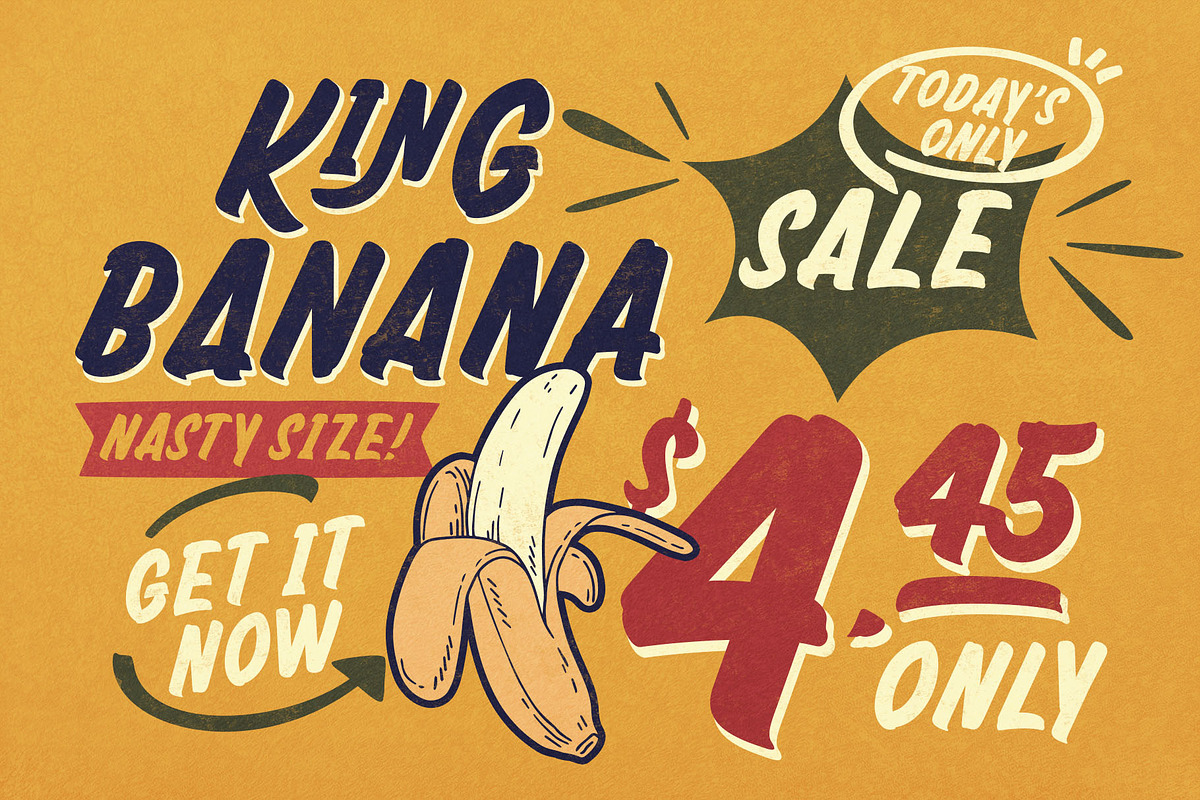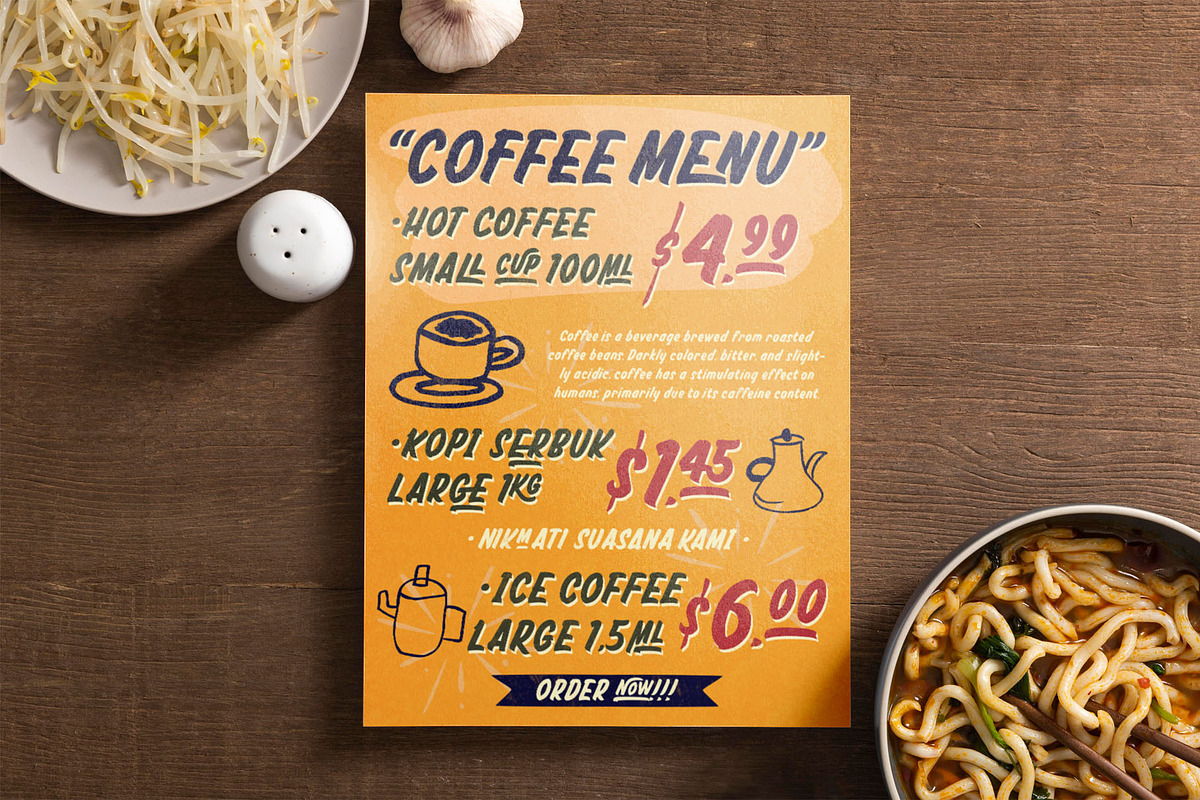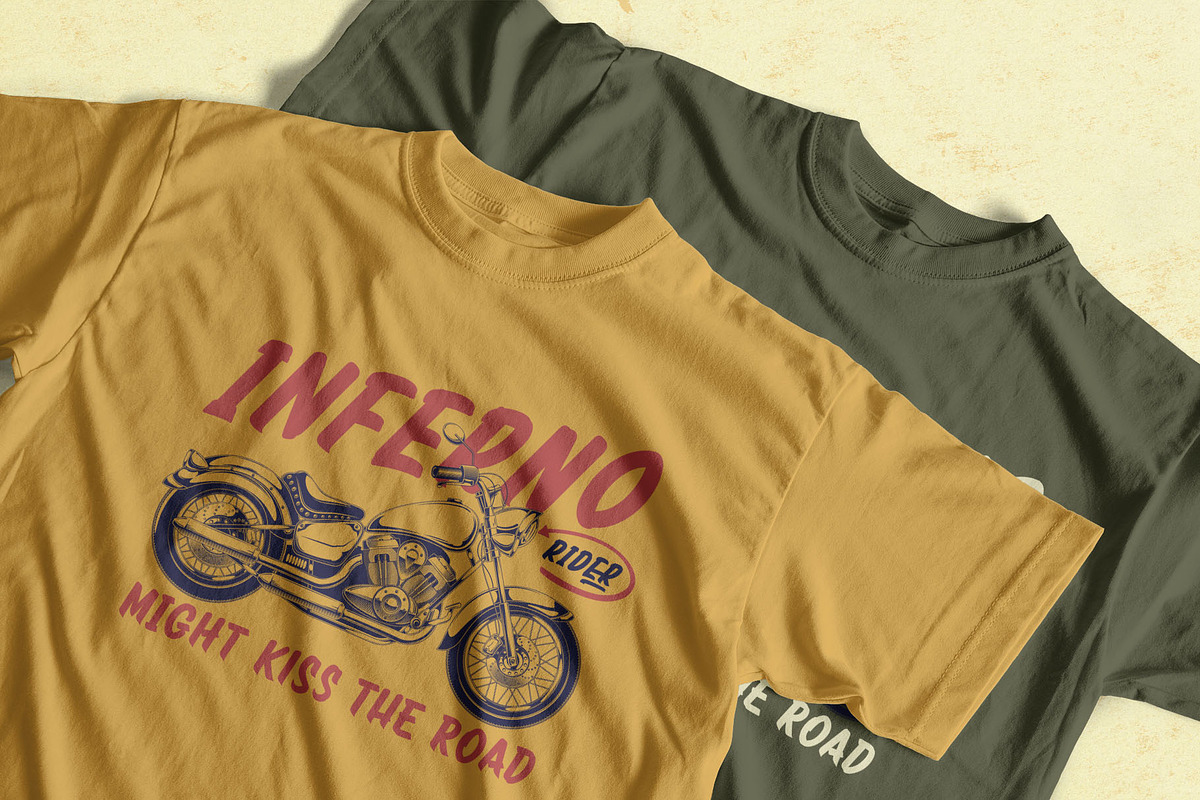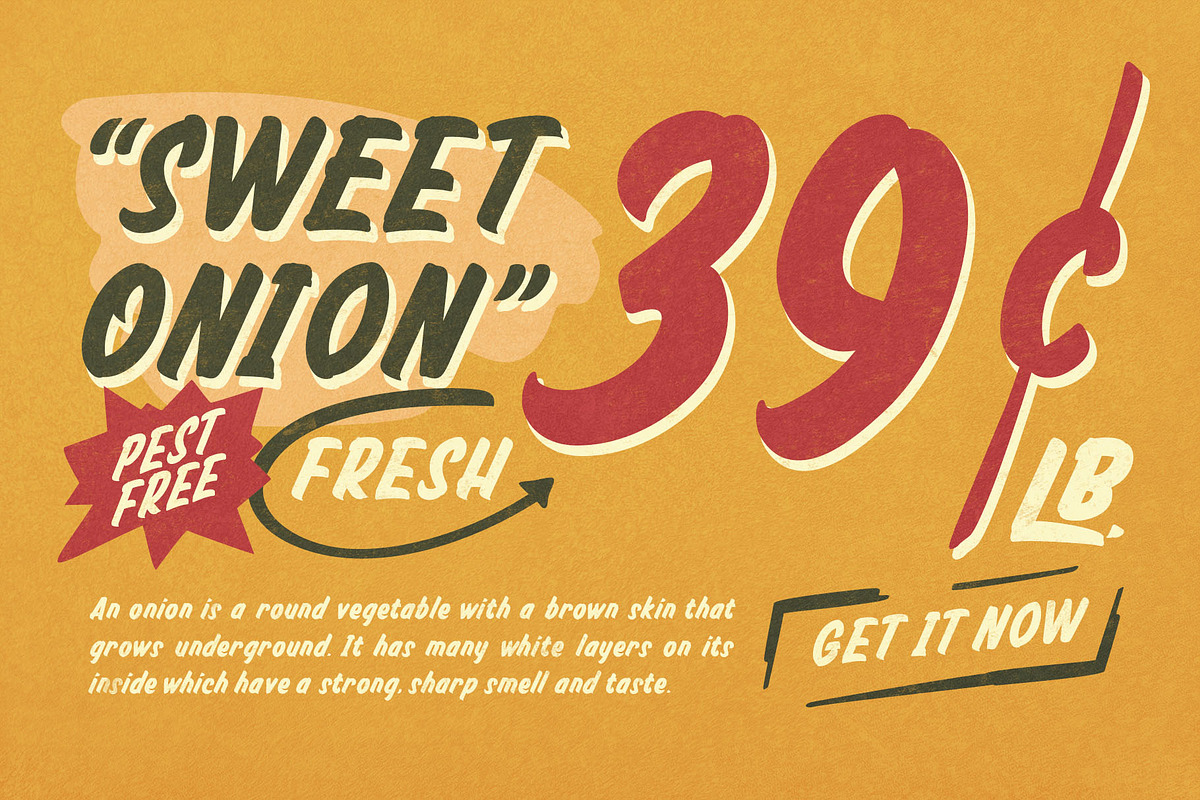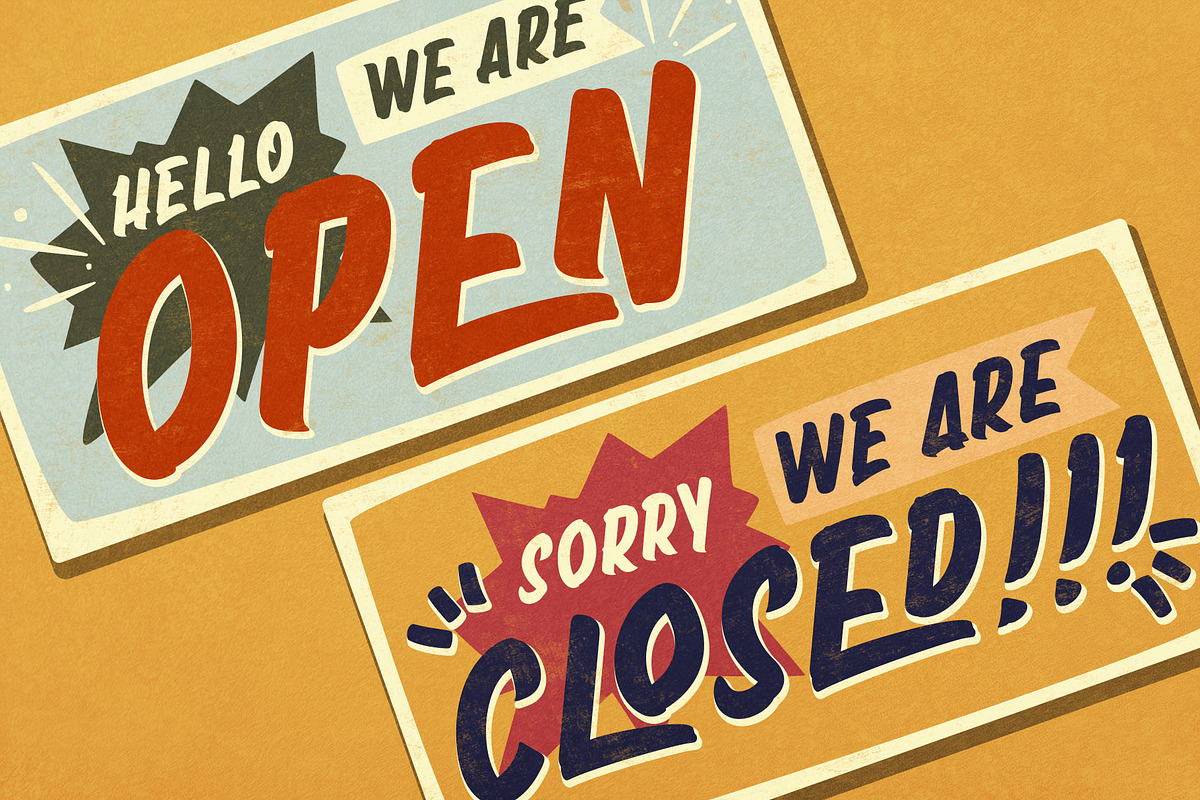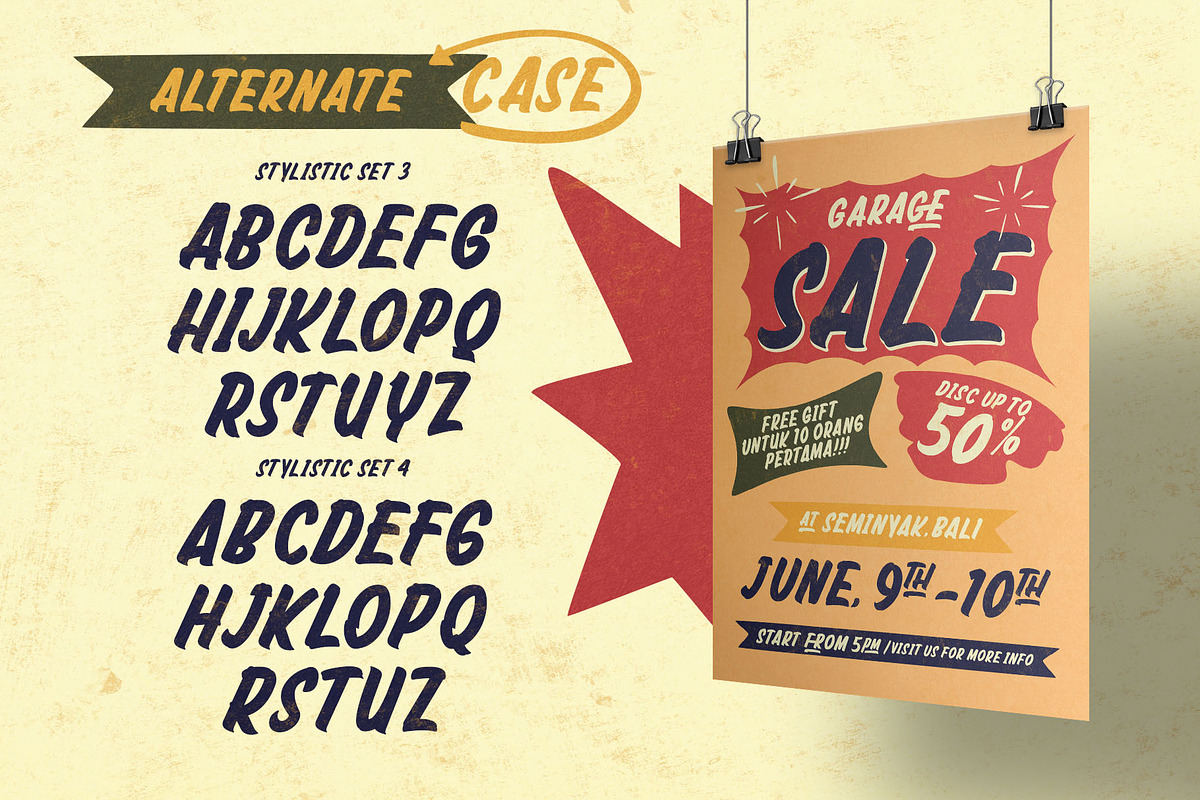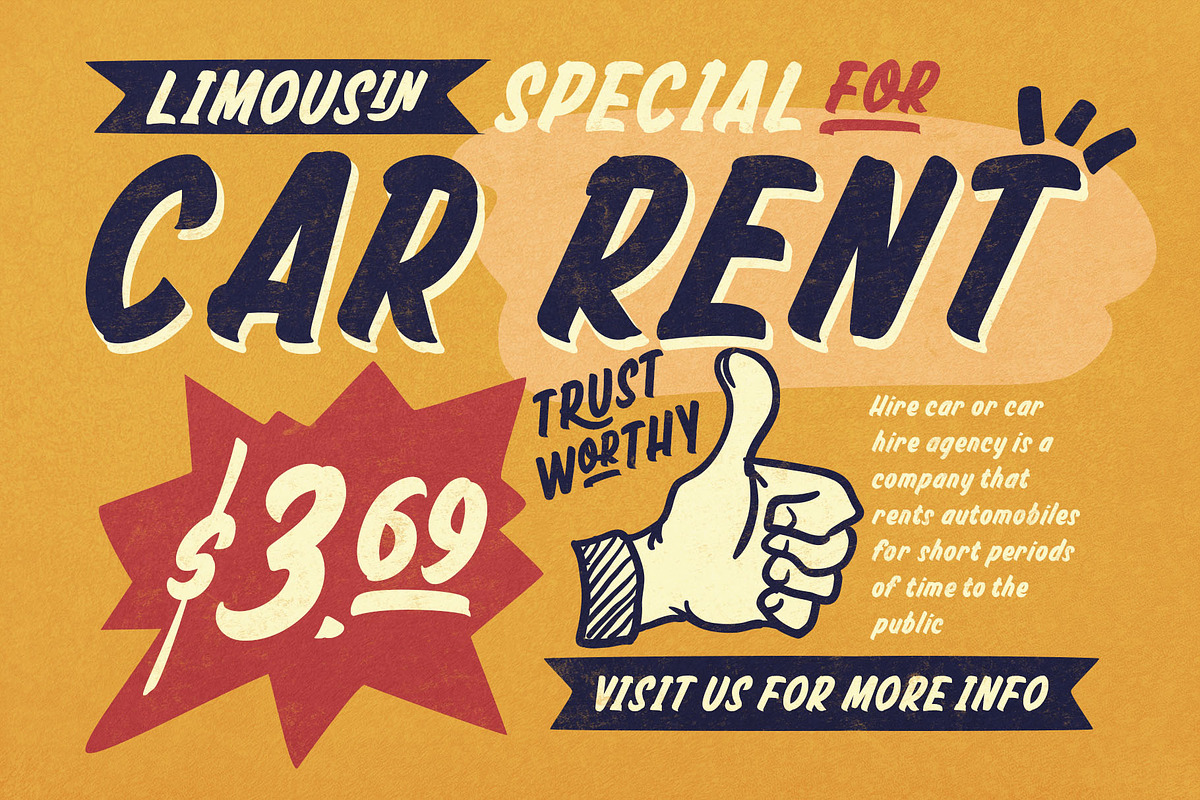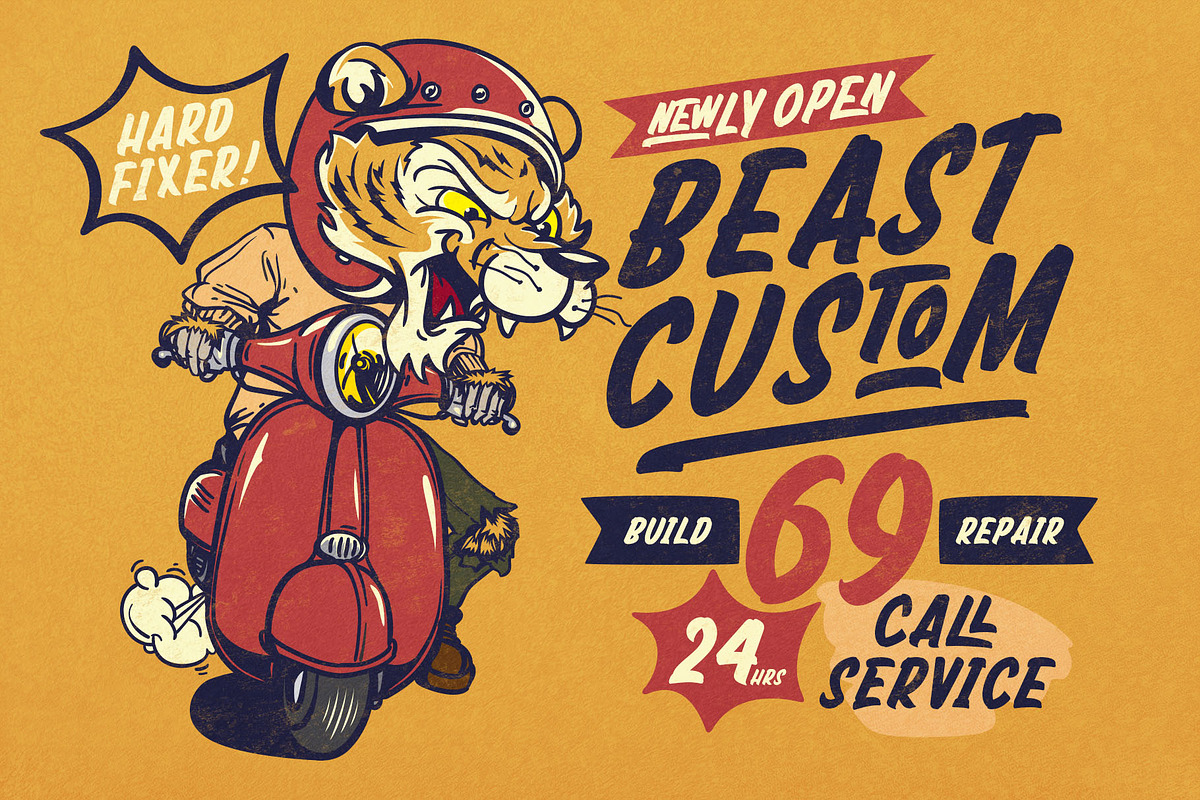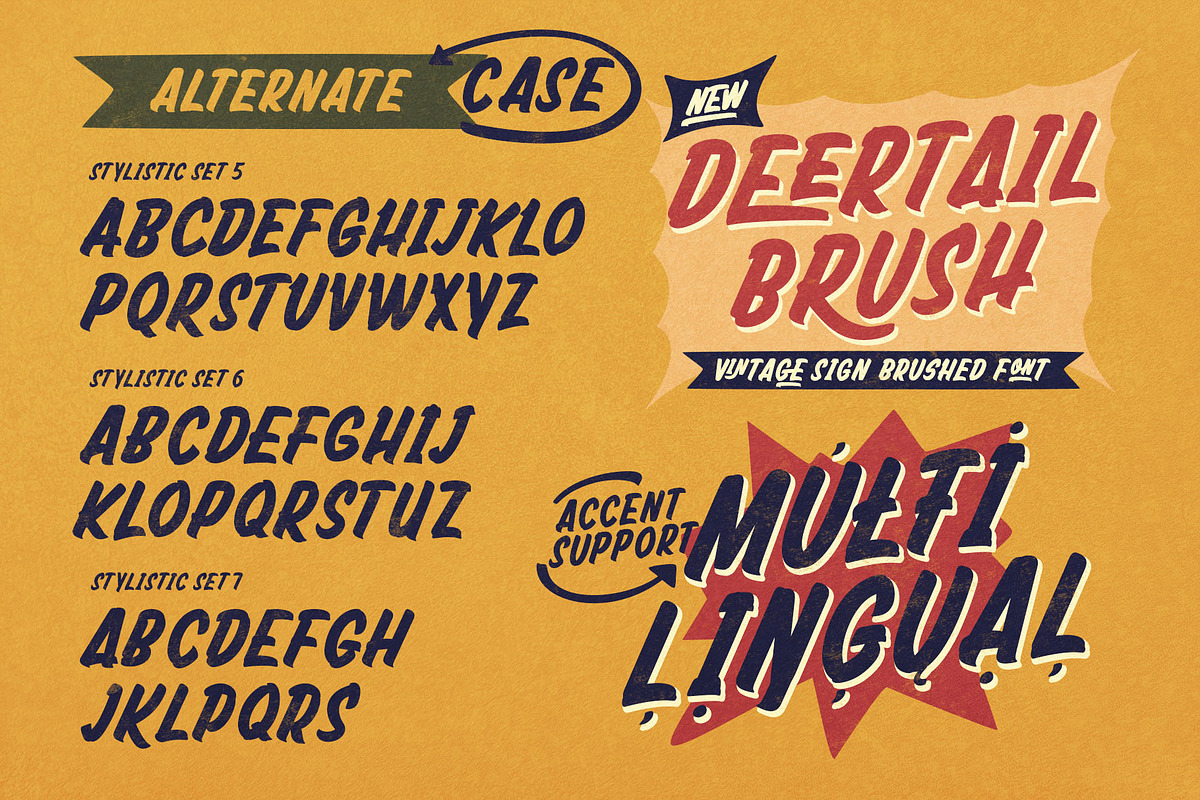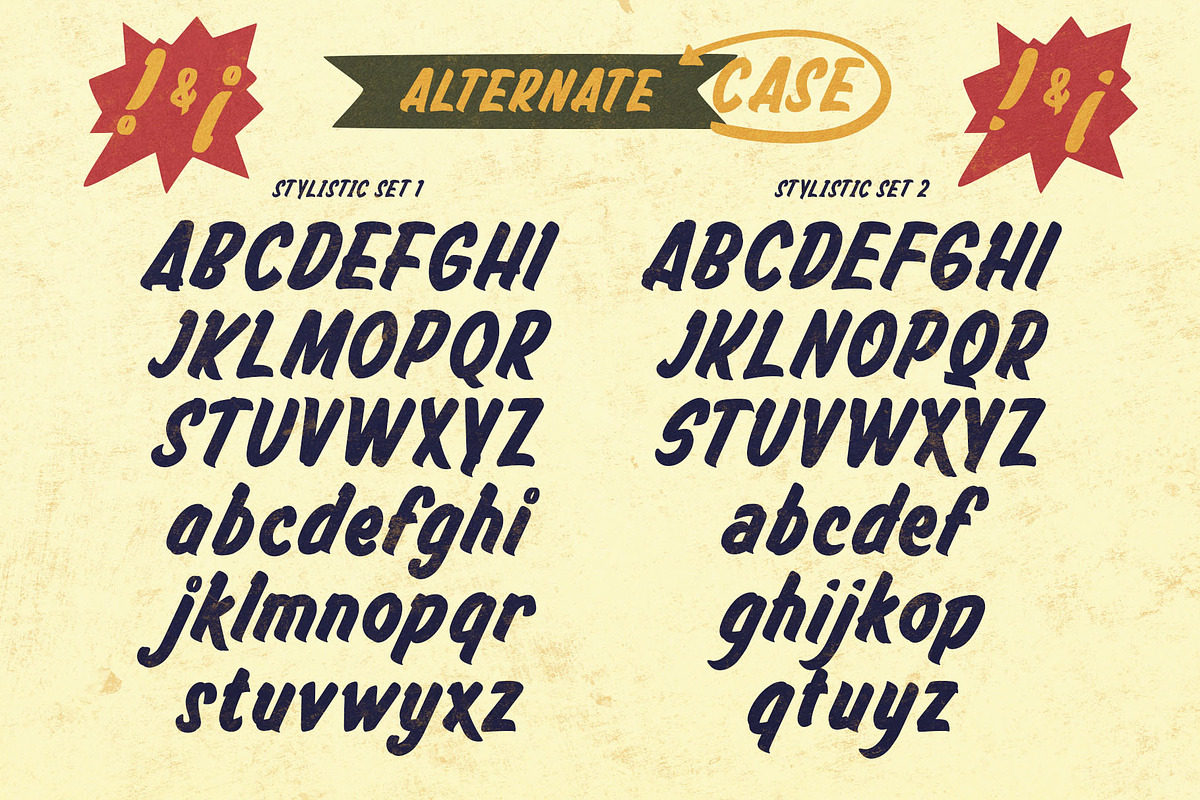
Deertail Brush Typeface
Deertail Brush Typeface: A Retro-Inspired Dynamic Font
Step back into the golden age of hand-painted signs and vintage posters with the Deertail Brush Typeface. This typeface captures the rugged charm of paintbrush strokes and the energetic flow of dynamic handwriting, making it perfect for projects that seek an authentic vintage aesthetic. Whether you're designing for branding, packaging, posters, or social media, Deertail Brush adds a punchy, nostalgic feel that stands out.
Font Highlights:
1. 792 Character Glyphs Deertail Brush offers an extensive library of 792 glyphs, ensuring that your designs never feel repetitive. This expansive range includes uppercase and lowercase letters, numbers, punctuation, and special symbols, allowing you to explore creative text arrangements with endless possibilities.
2. Rich Alternatives & Ligatures For those seeking variety, Deertail Brush is packed with alternative characters and ligatures. This feature enables you to create a more organic, hand-lettered look by swapping out default characters for stylistic alternatives and connecting letter combinations with ligatures. Perfect for achieving that flowing brushstroke effect in headlines, logos, and large-scale text.
3. Multilingual Support Going global? Deertail Brush supports multiple languages, including Western and Central European characters, so you can effortlessly extend your designs to different regions. From English to Spanish, French, German, and more, the font provides all the necessary accents and symbols to create localized content.
4. PUA Unicode Accessibility Deertail Brush is PUA encoded, which means every alternate character and special glyph is fully accessible without professional design software. You can easily browse and use all the font’s hidden characters in any software that supports fonts, like Photoshop, Illustrator, or even basic text editors.
5. Vintage Dingbat Bonuses Take your designs a step further with the included dingbat bonuses—a collection of hand-drawn icons and illustrations that complement the font's vintage aesthetic. Use these elements to enhance your typography, create unique embellishments, or build complete compositions with a retro flair.
Where to Use Deertail Brush Typeface?
Deertail Brush is versatile and adaptable, making it a fantastic choice for:
- Vintage Signage: Create authentic retro signage or chalkboard-style menus.
- Posters & Flyers: Design bold, dynamic posters that demand attention with lively brushstroke text.
- Branding & Logos: Give your brand a distinctive, hand-crafted feel with stylish typography that stands out from the crowd.
- Merchandise & Packaging: Perfect for vintage-themed product packaging or apparel designs that want to capture a nostalgic feel.
- Social Media Graphics: Craft bold and energetic social media visuals that evoke the charm of vintage advertising.
- T-shirts & Apparel: Let your typography shine on printed goods, with a classic yet vibrant personality.
Why Choose Deertail Brush?
Deertail Brush combines the ruggedness of traditional brush fonts with modern versatility, making it a must-have for designers looking to capture the authenticity of vintage sign art. Its extensive character set, multilingual support, and alternative glyphs make it easy to customize every word. Plus, with PUA Unicode and fun dingbat bonuses, you can elevate your projects with ease and creativity.
Bring a sense of history, craft, and dynamism to your designs with the Deertail Brush Typeface – a font that leaves a lasting impression!
Get ready to craft your next masterpiece with Deertail Brush – where vintage inspiration meets modern design needs.